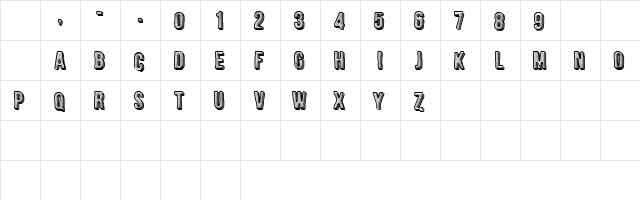
CF Engraved Regular
| Foundry | CloutierFontes |
| Designer | Steve Cloutier |
Design Context for CF Engraved Typeface
CF Engraved brings ornamental detail and strong personality to headlines and identities, where visual impact matters more than quiet functionality.
Font Pairing: Pair with a clean neutral sans-serif for body copy to let CF Engraved's character lead without overwhelming the composition.
Pro Tip: Use CF Engraved exclusively at display sizes — it was designed to be seen, not read at length. Let a neutral companion handle body copy.